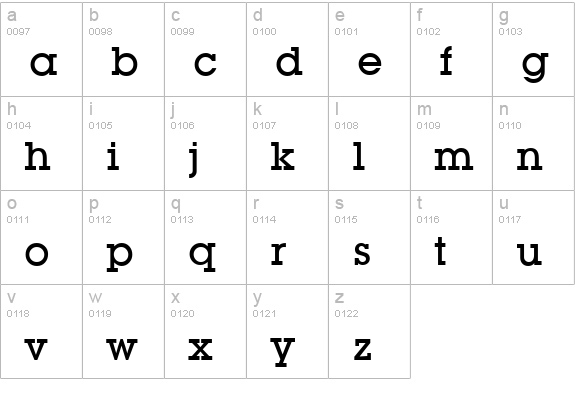
L850-Slab-Medium-Regular is a balanced, medium-weight variant in the L850 typeface family \xE2\x80\x94 well suited to sub-headlines, navigation, and balanced editorial work.
L850-Slab-Medium-Regular is a modern and versatile font that exudes a sense of sophistication and professionalism. With its clean lines and balanced proportions, this typeface is perfect for a wide range of design projects, from branding to editorial design. The sturdy slab serifs add a touch of boldness and impact to any text, making it stand out while still maintaining readability. Best of all, L850-Slab-Medium-Regular is available for free download at FontsMarket.com. This means that you can easily access and use this high-quality font in your projects without any cost. Whether you're a seasoned designer looking to try out a new typeface or a beginner searching for a reliable font for your creations, L850-Slab-Medium-Regular is a fantastic choice that won't break the bank. Download it today and elevate your designs with this elegant and versatile font.